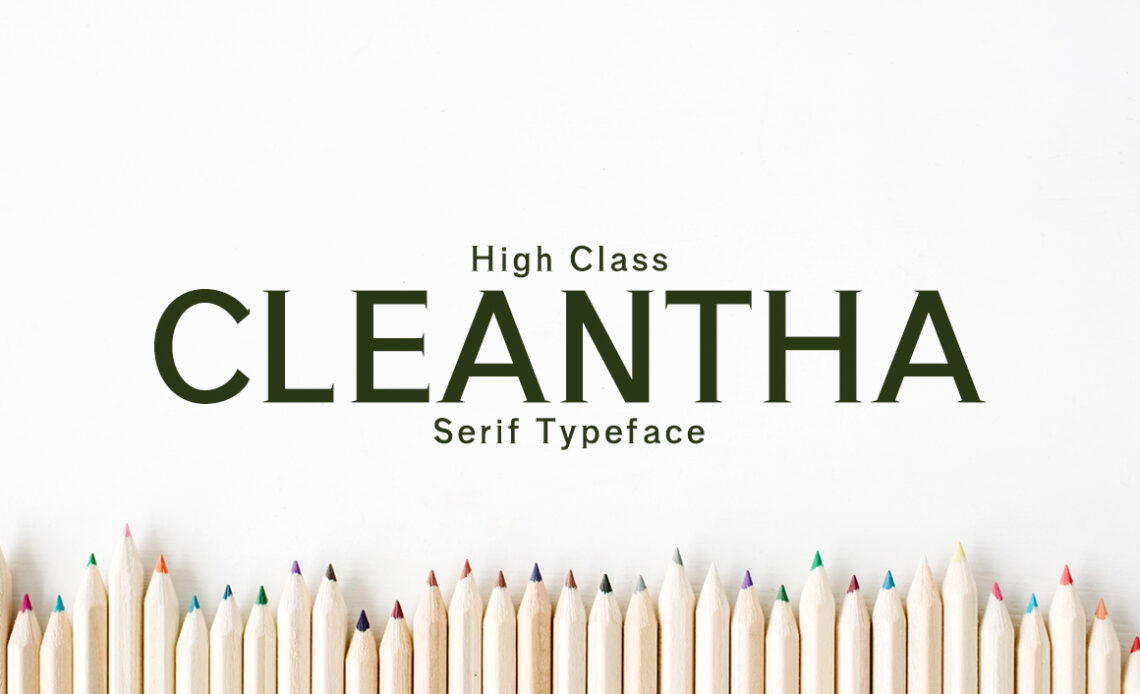
Cleantha Font
Introducing Cleantha Font, a serif typeface that exudes elegance and sophistication. Its meticulously crafted curves and subtle serifs create a visual symphony that commands attention.
Immerse yourself in a world of effortless readability, where Cleantha's clean lines and generous letter spacing guide your eyes seamlessly across the page. Its versatile nature makes it an ideal companion for headlines, logos, posters, and more.
Whether you seek to create a timeless masterpiece or infuse your designs with a touch of modern allure, Cleantha stands ready to elevate your creations. Its diverse weights from light to bold offer endless possibilities, allowing you to tailor it perfectly to your vision.